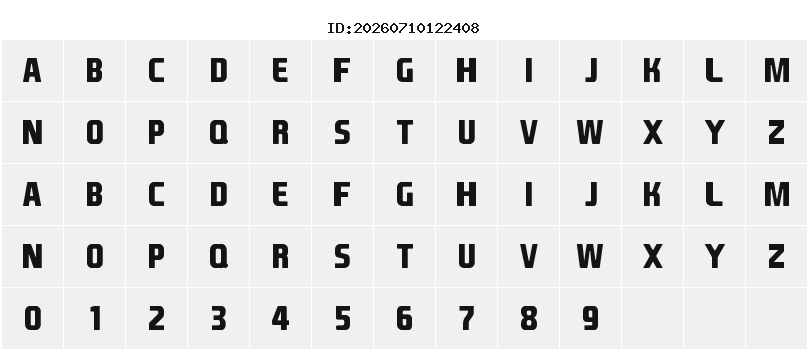
EA Font v1.5 by Ghettoshark Preview
• Font Name: EA Font v1.5 by Ghettoshark
• Full Font Name: EA Font v1.5 by Ghettoshark
• Version: Version 1.1 October 26, 2006, initial release
About EA Font v1.5 by Ghettoshark.ttf
EA Font v1.5 by Ghettoshark.ttf is a modern, elegant sans-serif font designed for ultimate readability and visual harmony. Perfect for branding, headlines, web design, and print materials.